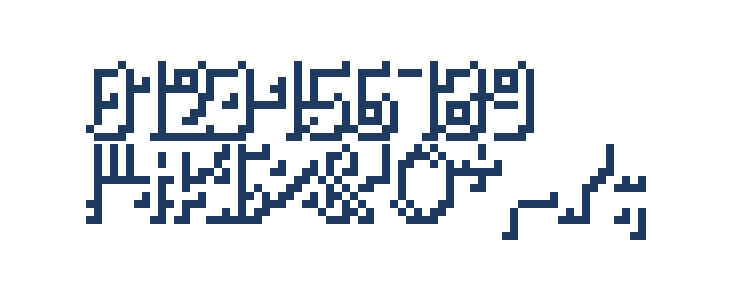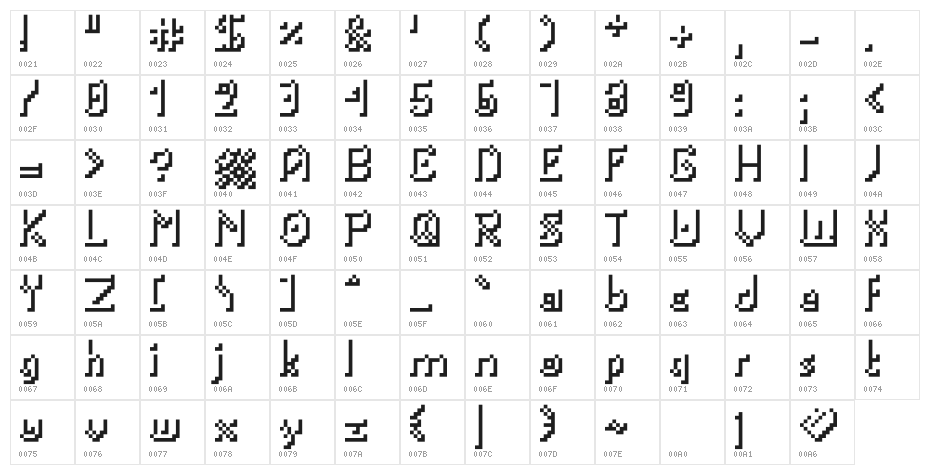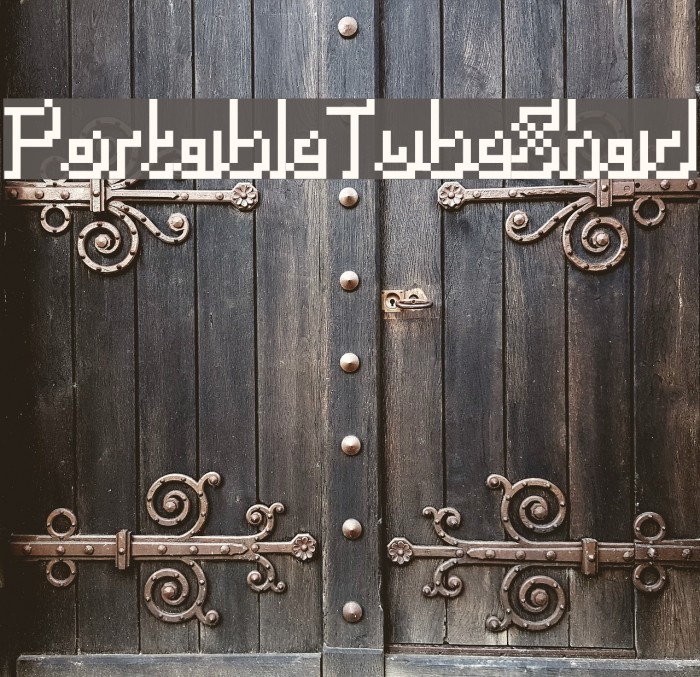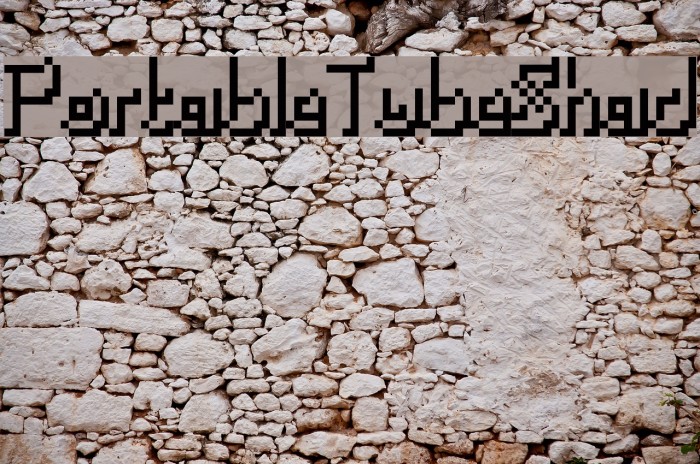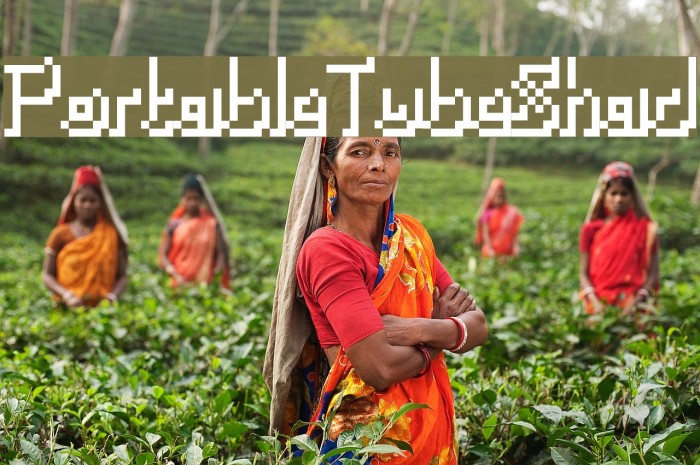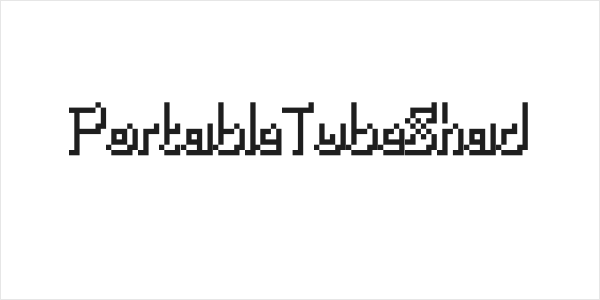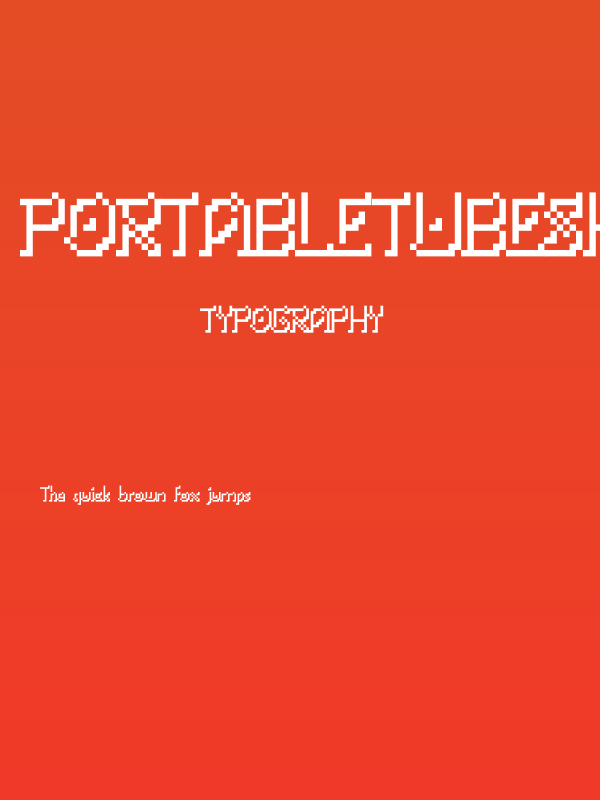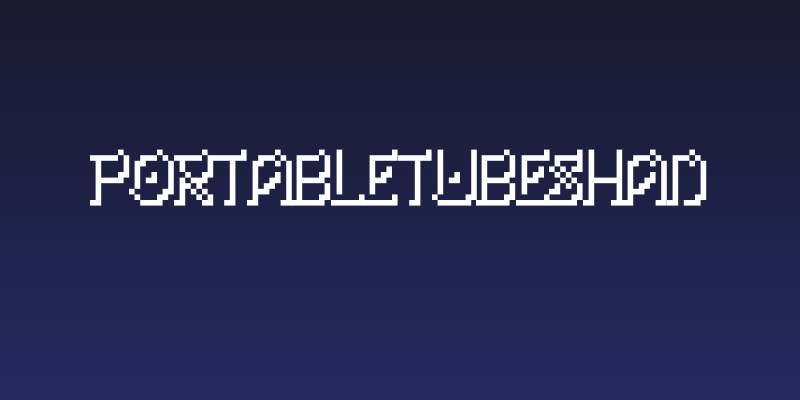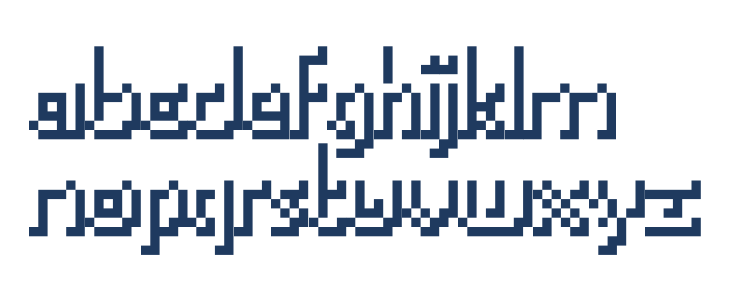
PortableTubeShad Font
PortableTubeShad Description
This font features a distinct pixelated style, reminiscent of early digital displays and retro video games. Each character is composed of blocky, square pixels, creating a uniform and grid-like appearance. The uppercase and lowercase letters maintain a consistent height, with sharp angles and straight lines. Numbers and special characters follow the same pixelated design, ensuring a cohesive look across all glyphs. The font's unique aesthetic is both nostalgic and modern, making it suitable for projects that aim to evoke a sense of digital nostalgia or a retro-futuristic vibe.
Overall StyleRetro, Digital
Proposed ProjectsIdeal for video game design, digital art projects, retro-themed posters, and tech-related branding.